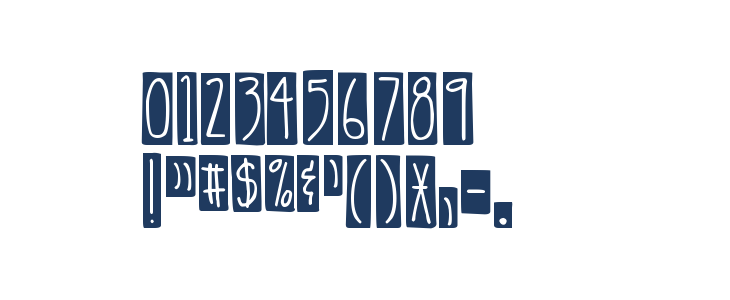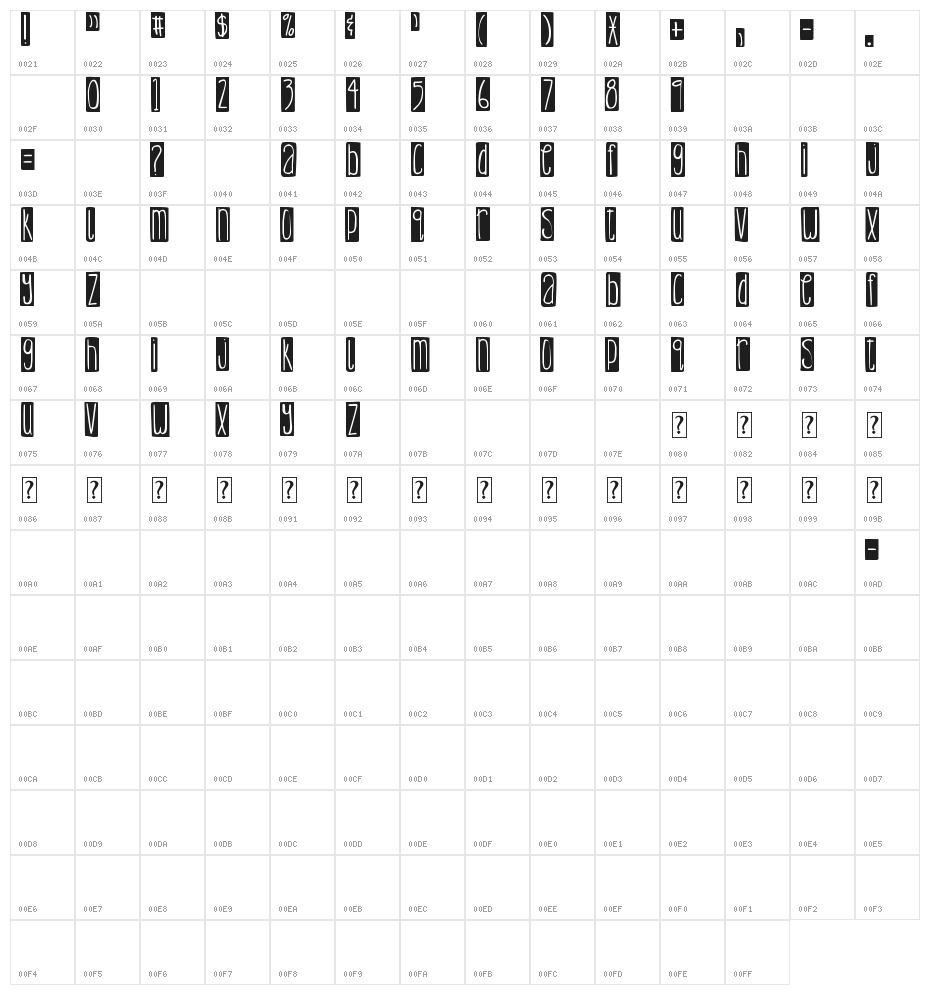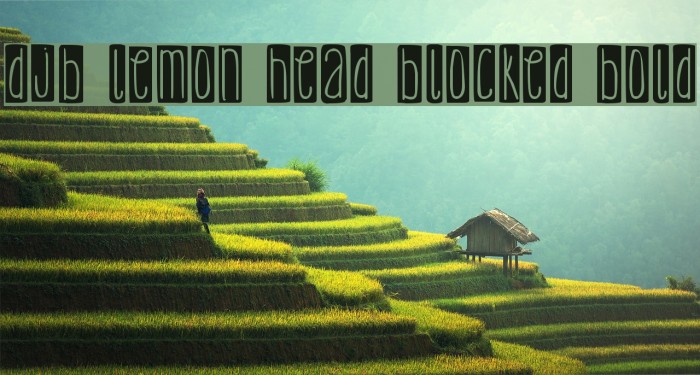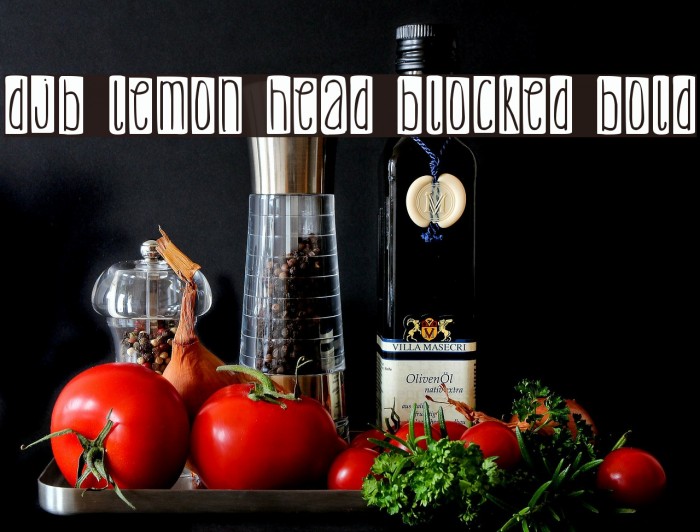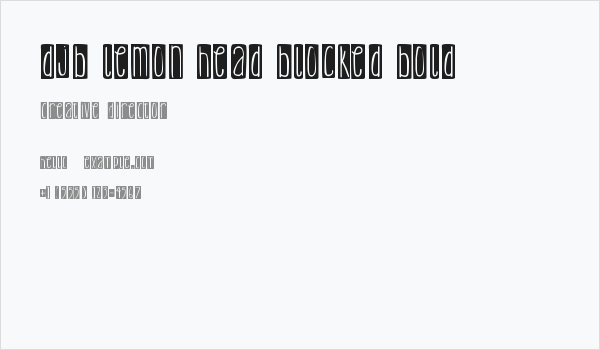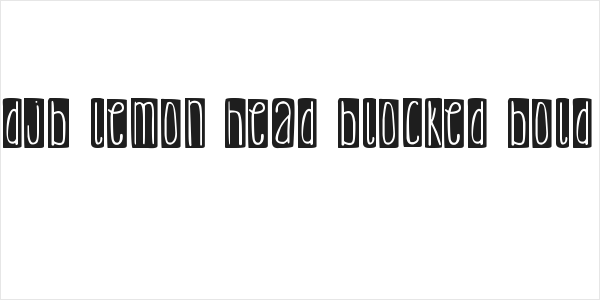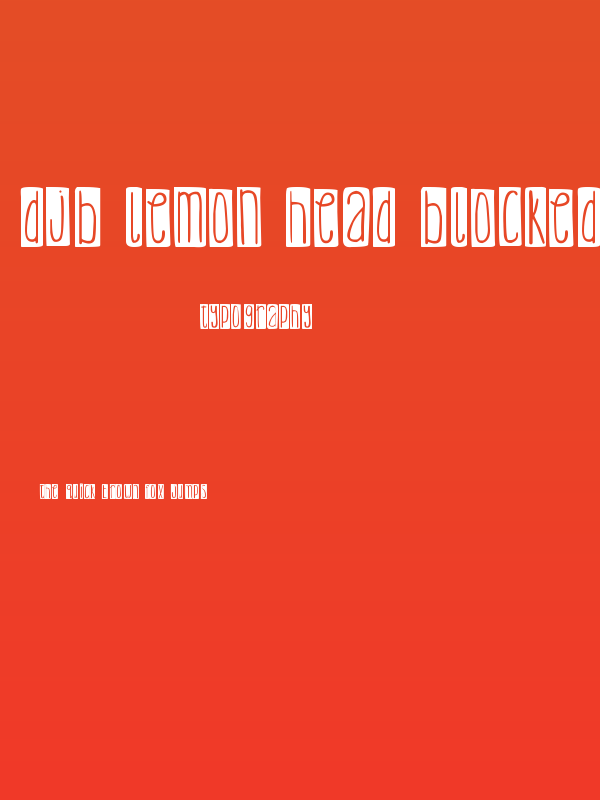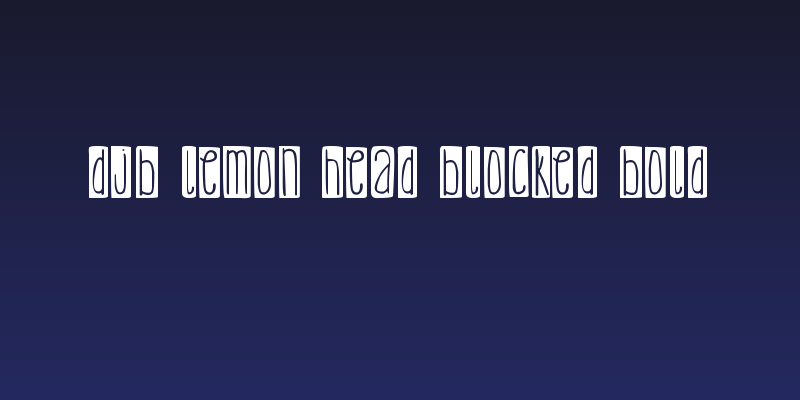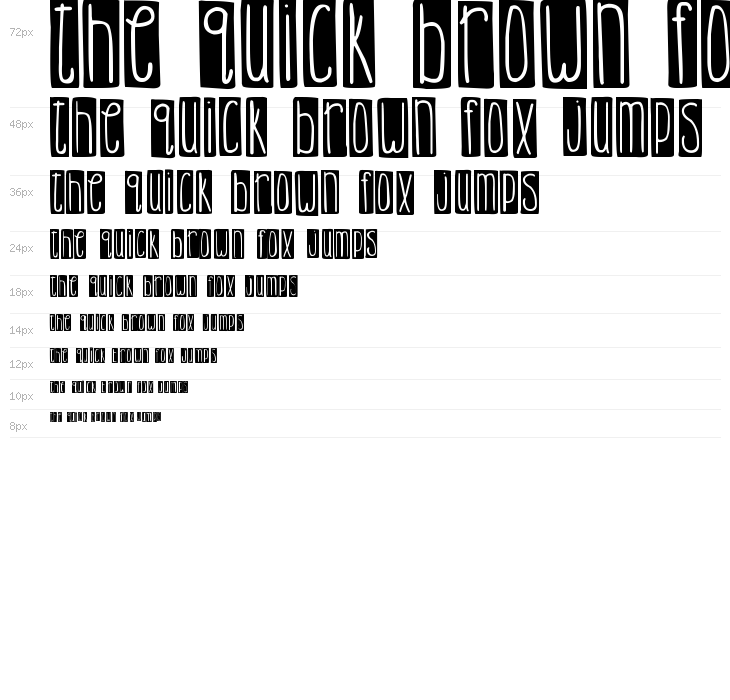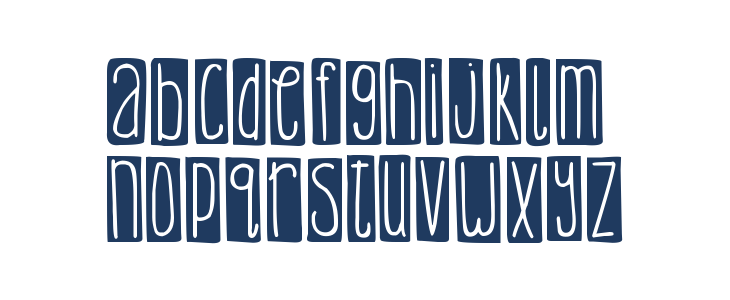
DJB Lemon Head Blocked Bold Font
DJB Lemon Head Blocked Bold Description
This playful and bold font features a unique hand-drawn style with each character enclosed in a rectangular block. The letters have a whimsical, slightly irregular form that gives them a charming and informal appearance. The uppercase and lowercase letters maintain a consistent style, with elongated ascenders and descenders that add to the font's quirky personality. The numbers and special characters follow the same design, ensuring a cohesive look across all text elements. The font's boldness and distinctive style make it stand out, perfect for creative projects that require a fun and engaging typeface.
Overall StylePlayful, Whimsical
Proposed ProjectsIdeal for children's books, playful branding, posters, and creative invitations.